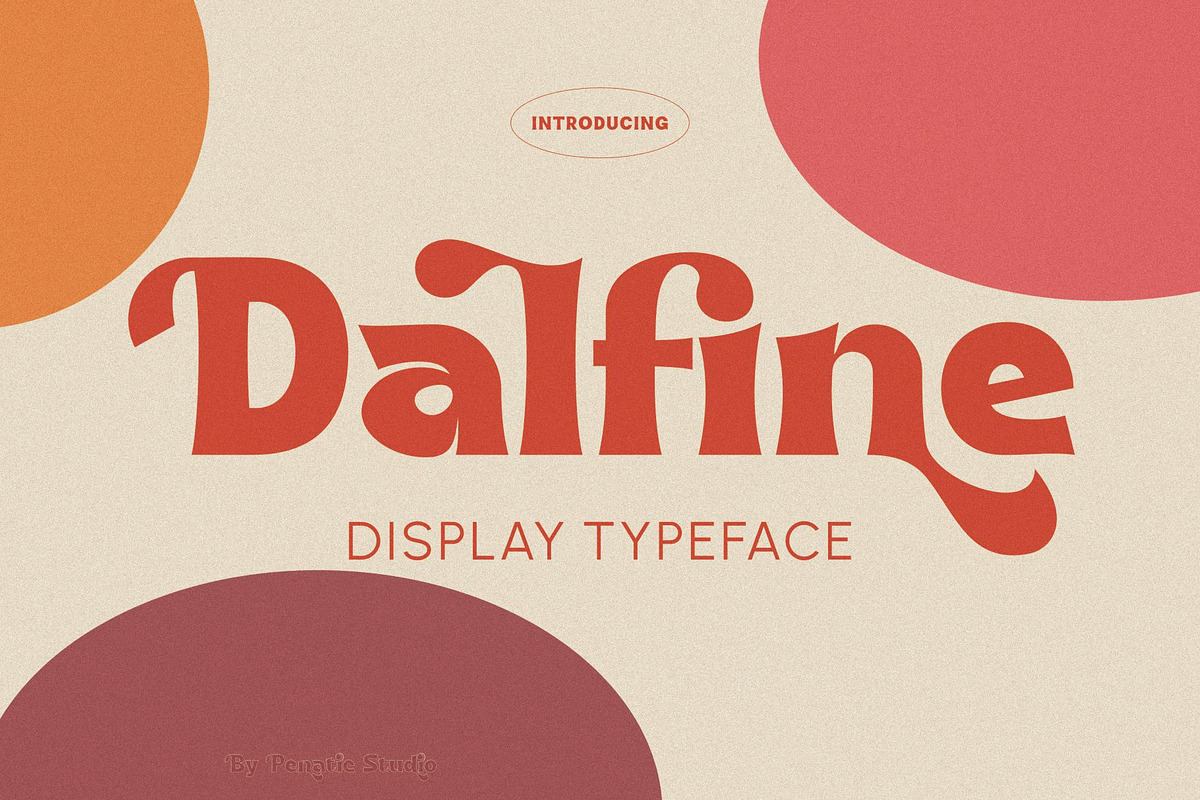
Dalfine Classic Font Free Download is a timeless serif typeface that blends traditional elegance with modern versatility. With its refined curves, balanced proportions, and vintage-inspired character, Dalfine is perfect for luxury branding, editorial layouts, wedding stationery, fashion campaigns, and high-end product packaging.
Whether you're designing a classic logo, a stylish magazine spread, or a sophisticated invitation, Dalfine adds a touch of class and professionalism to every project. Its graceful letterforms and smooth readability make it a go-to choice for creatives who value both form and function in their typography.